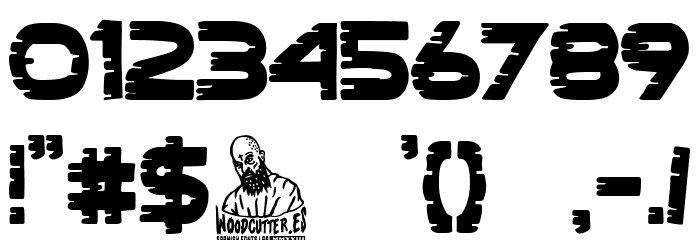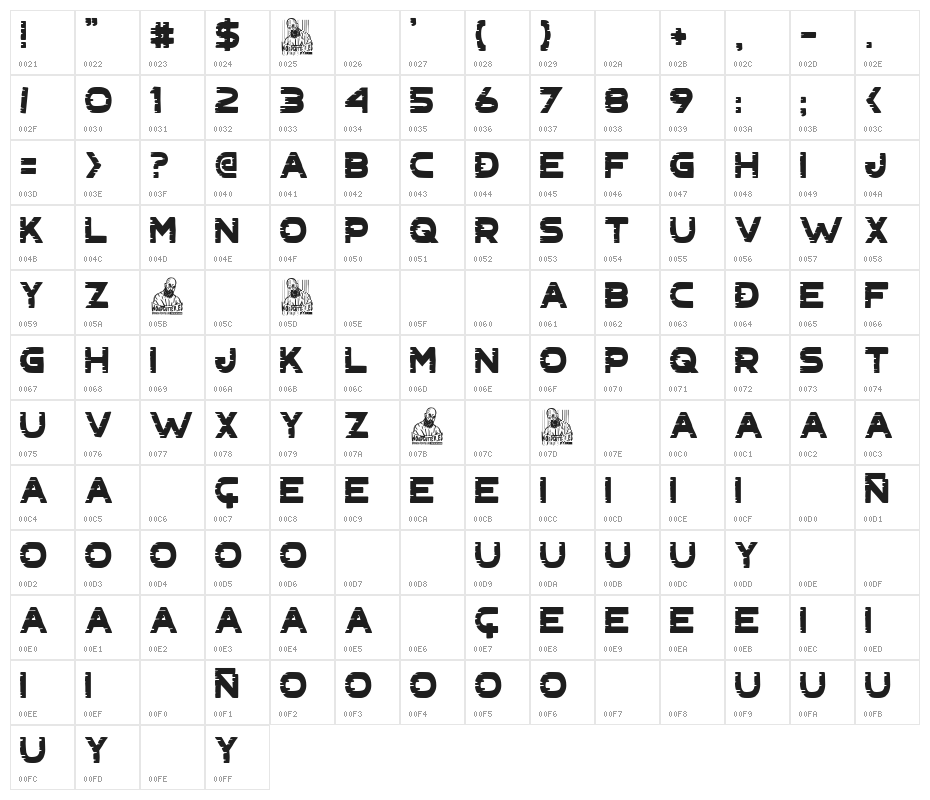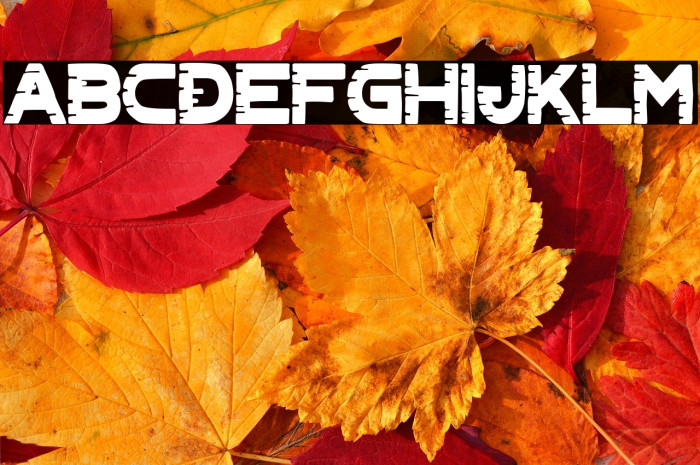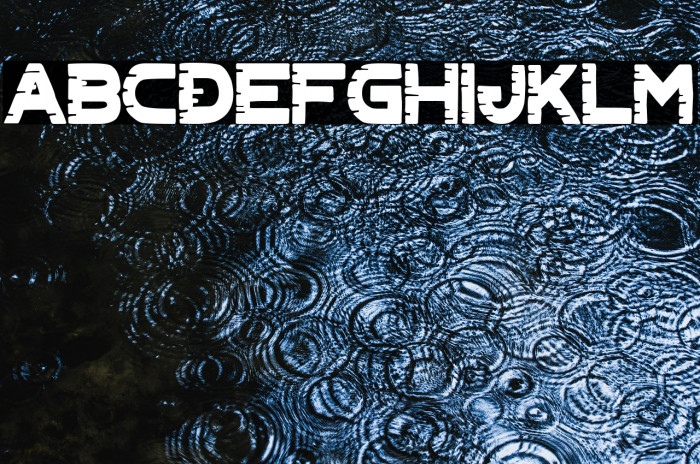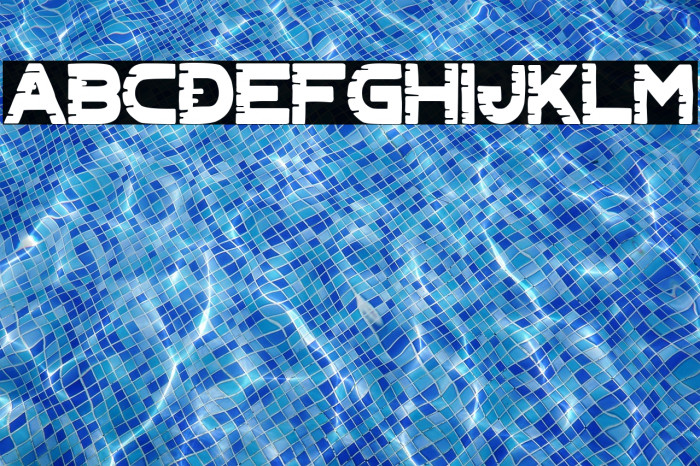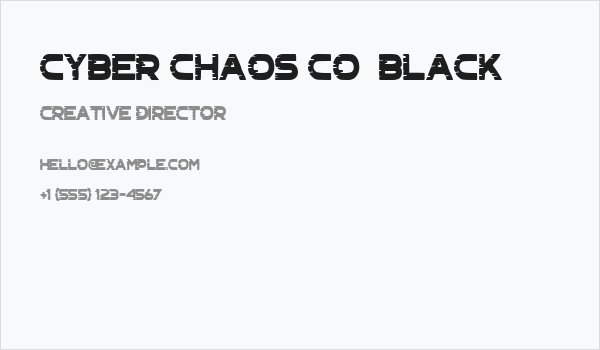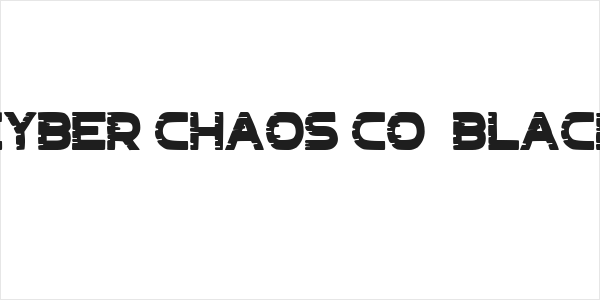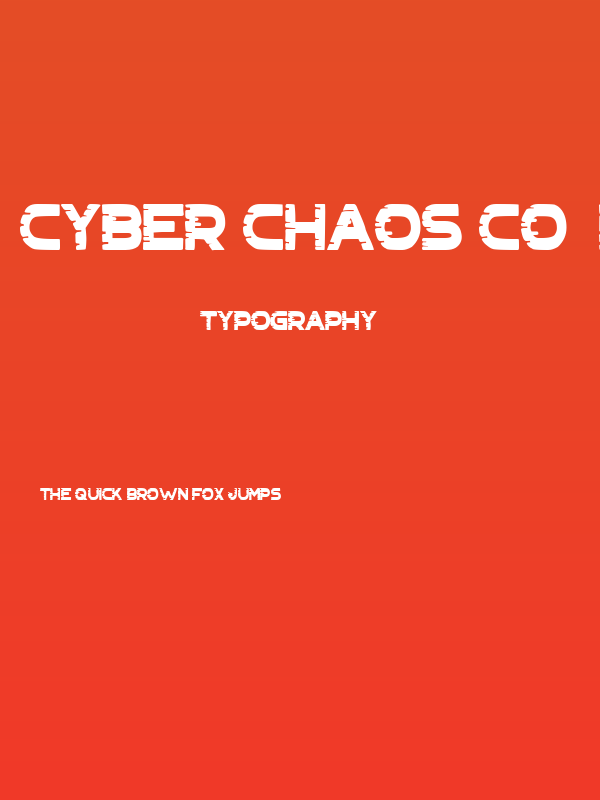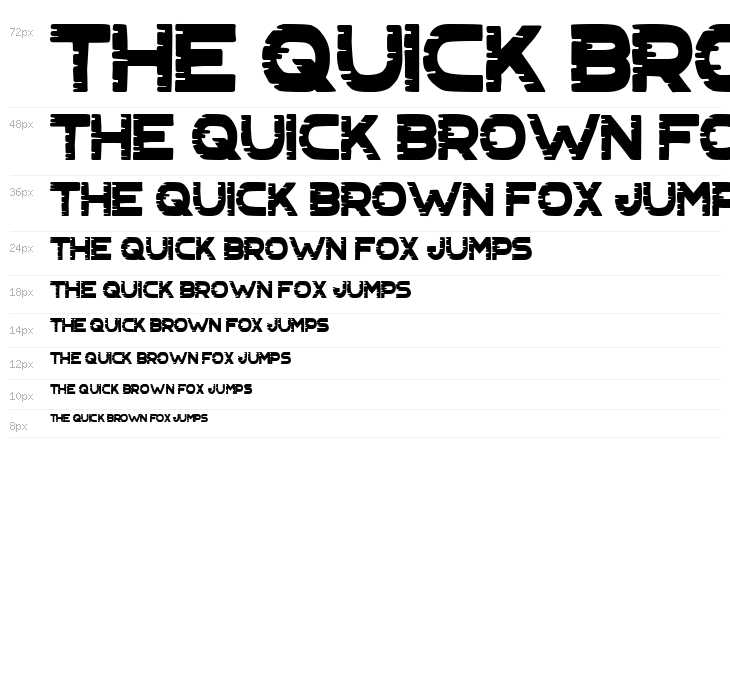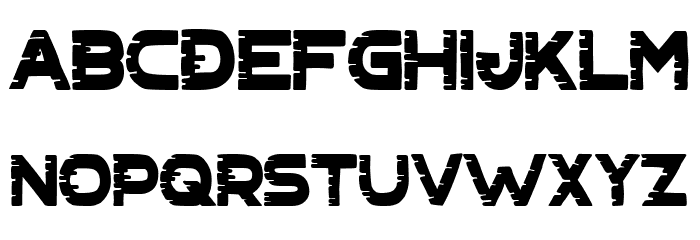
Cyber Chaos co_black Font
Cyber Chaos co_black Description
This font features a bold and edgy design with a distressed, chaotic appearance. The characters are heavily stylized, with irregular cuts and a rugged texture that gives them a digital, glitch-like effect. The uppercase and lowercase letters maintain a consistent style, creating a cohesive yet dynamic look. Numbers and special characters follow the same design principles, ensuring uniformity across all glyphs. This font's unique aesthetic makes it stand out, ideal for projects that require a modern and unconventional typeface.
| Proposed Projects | Ideal for tech-themed designs, video game graphics, posters, and edgy branding projects. |